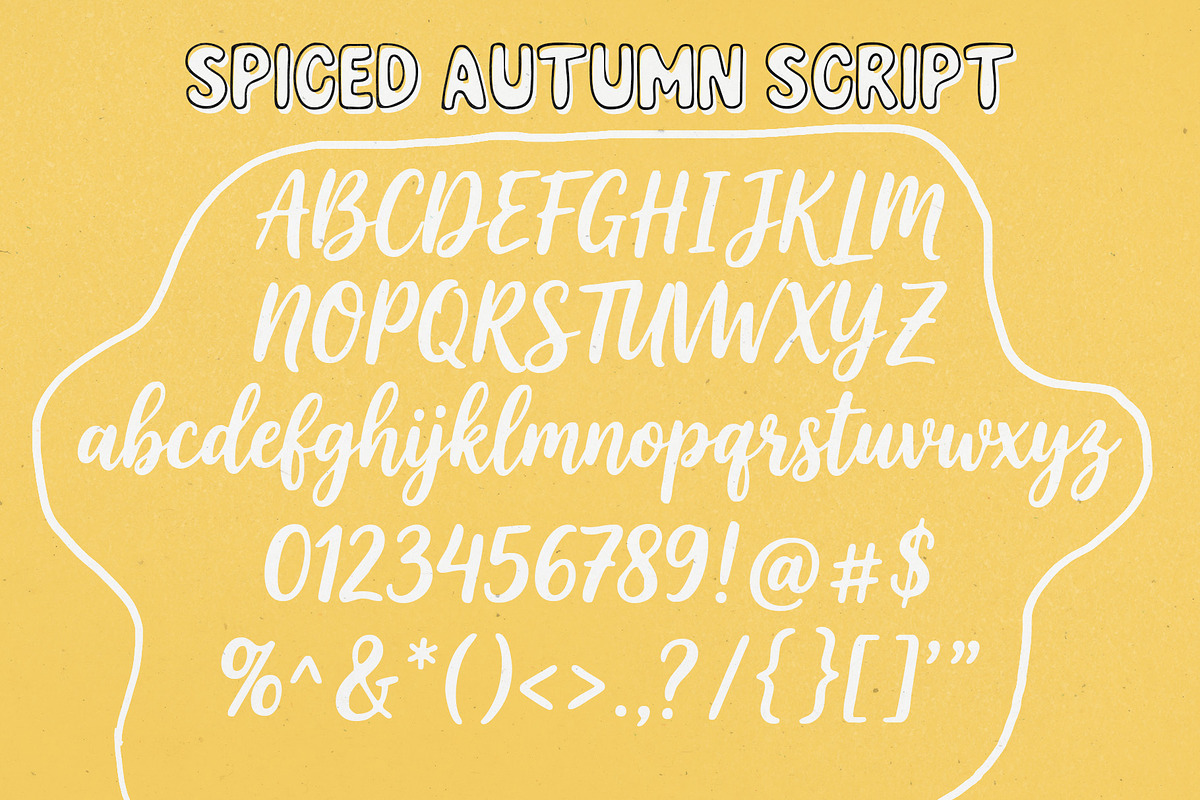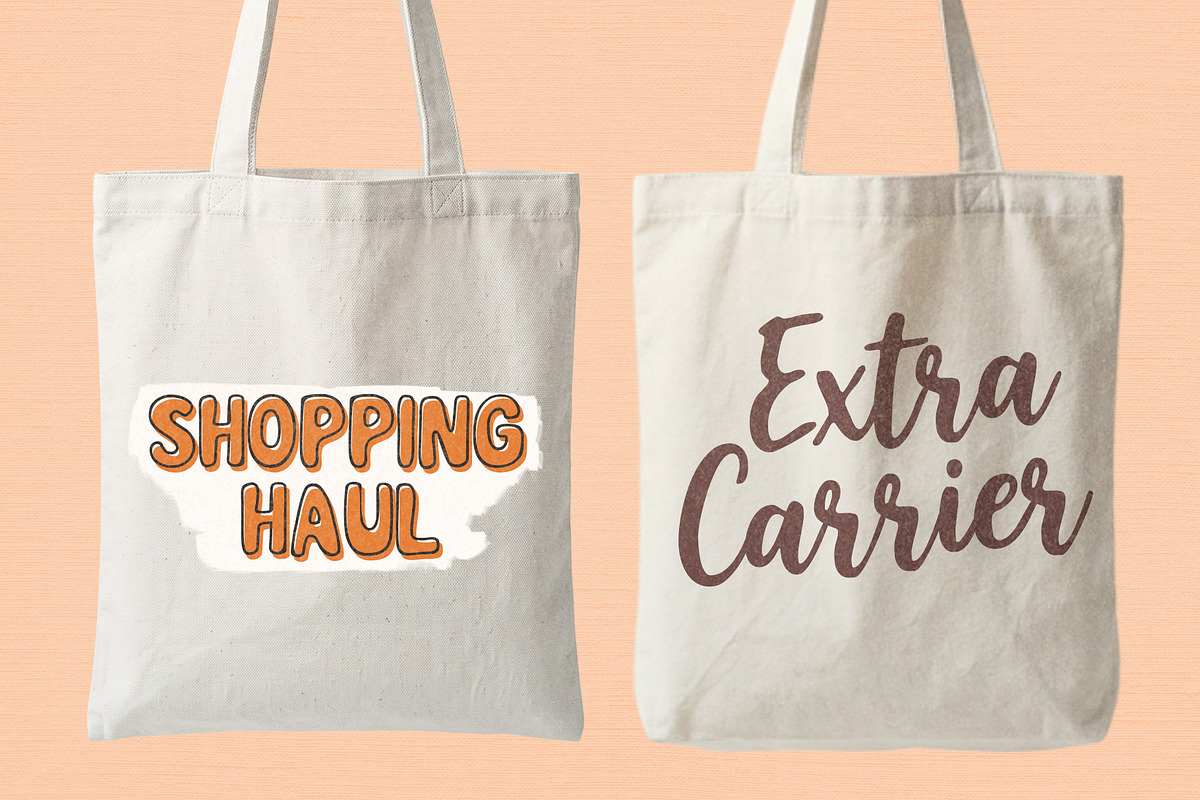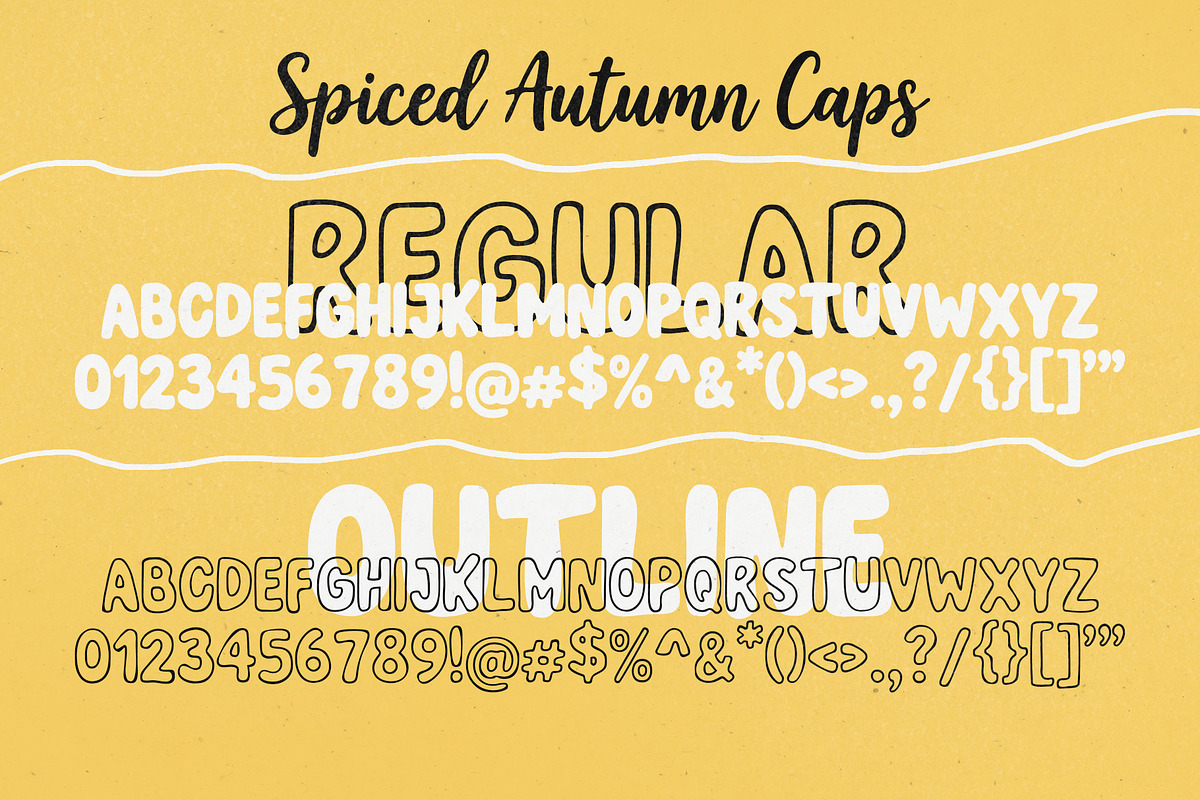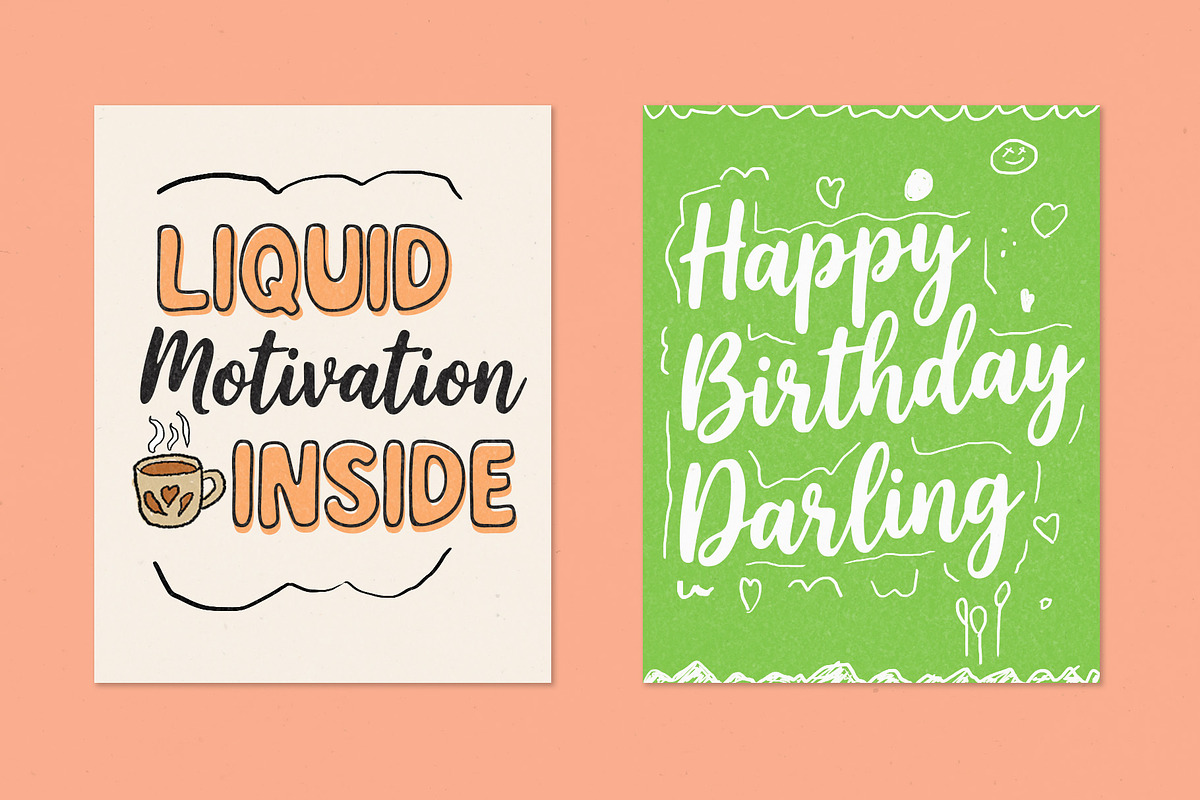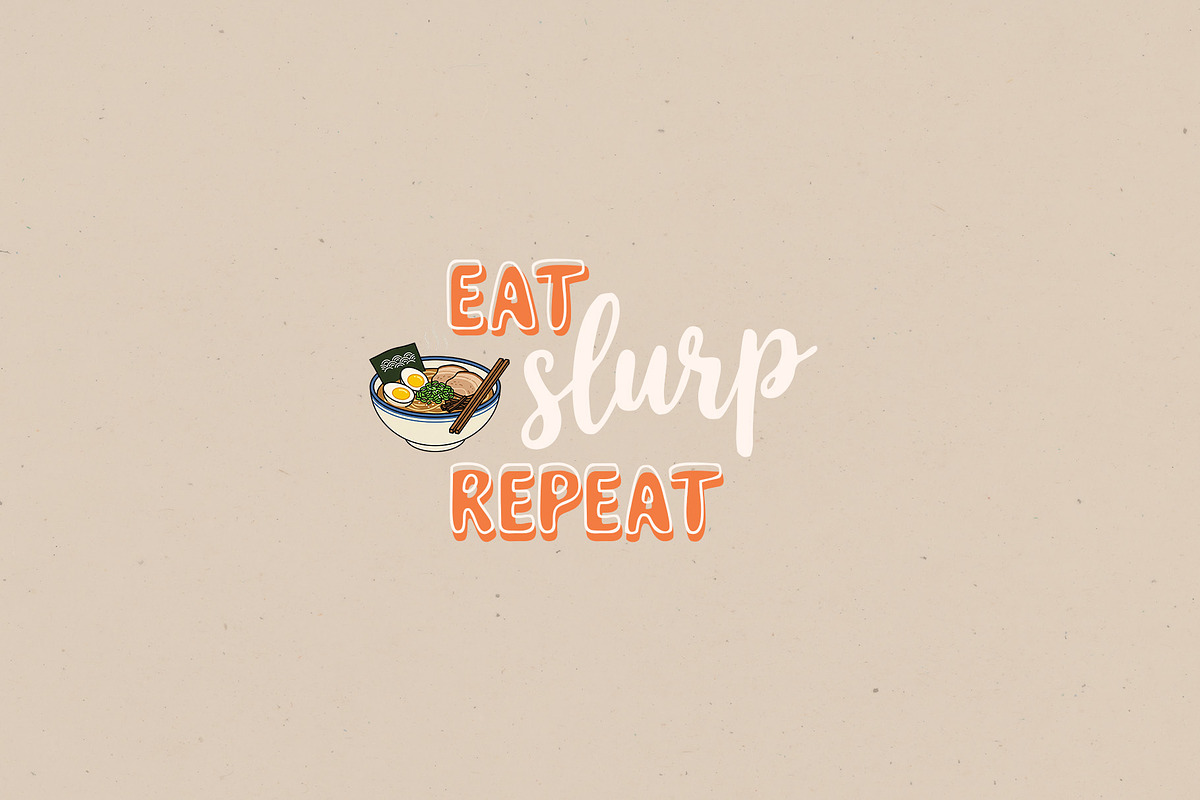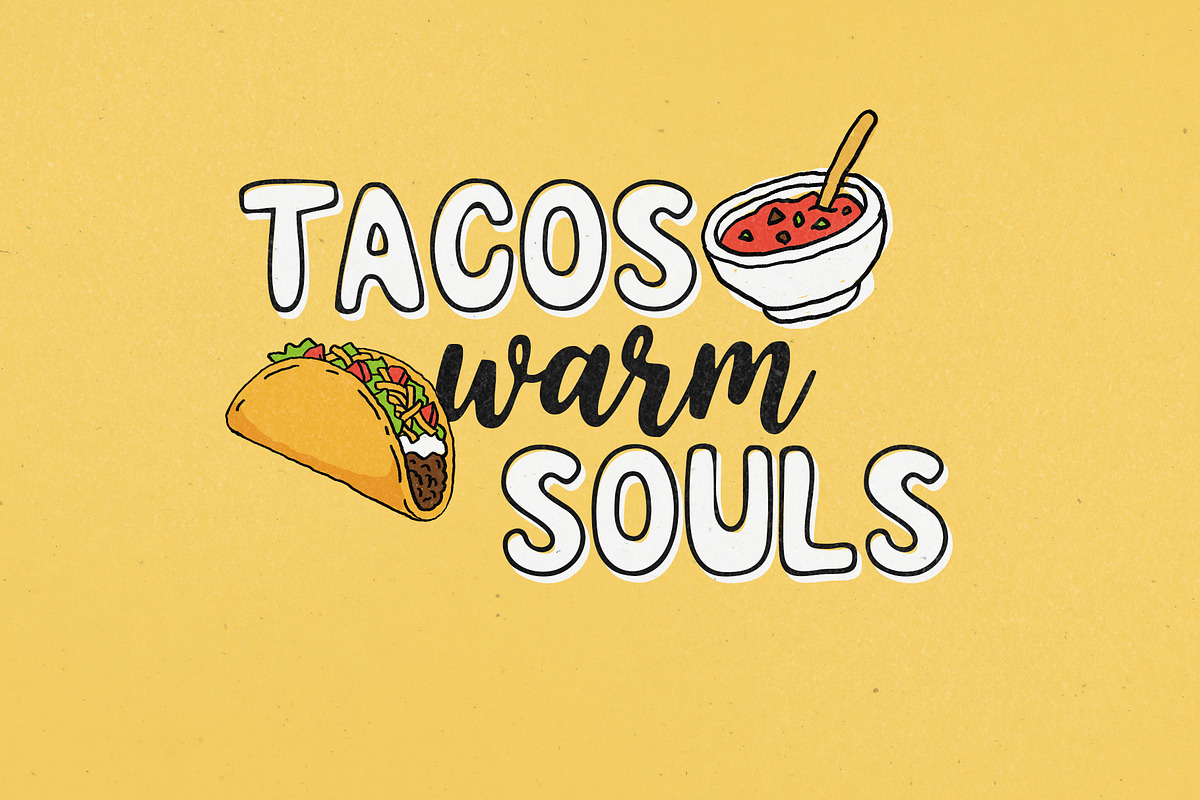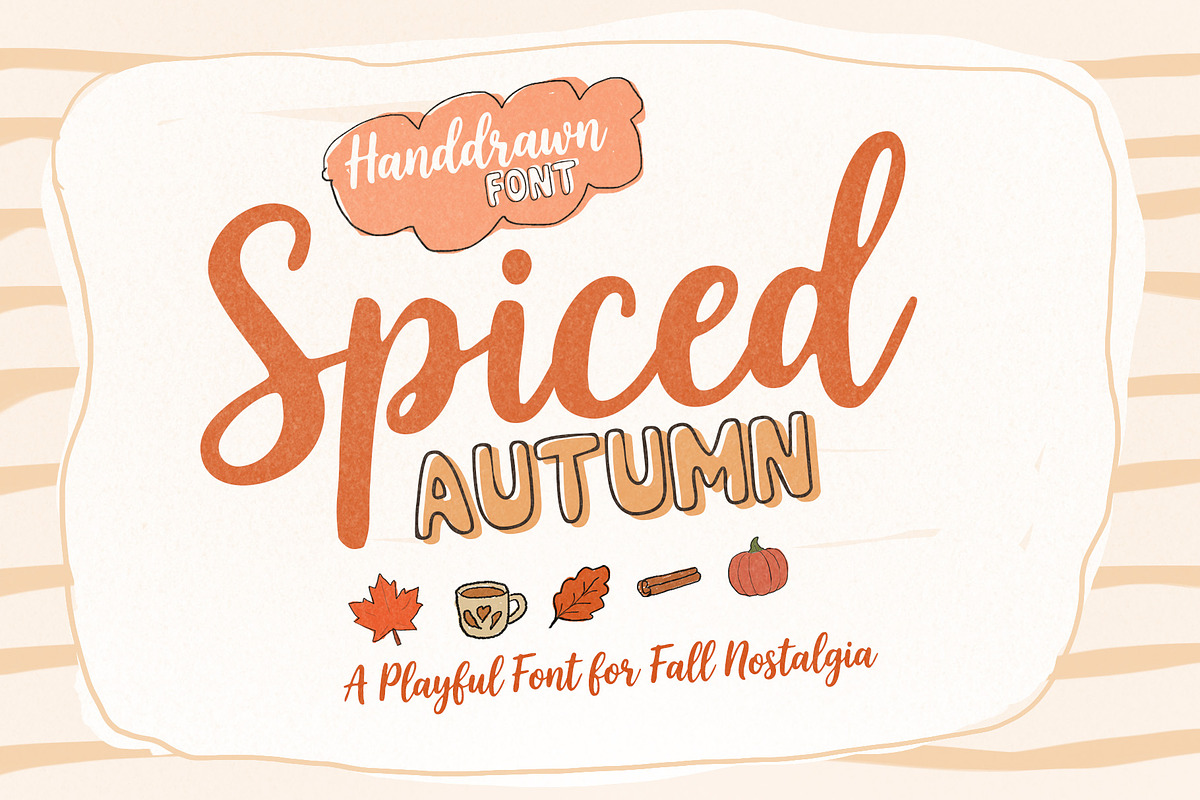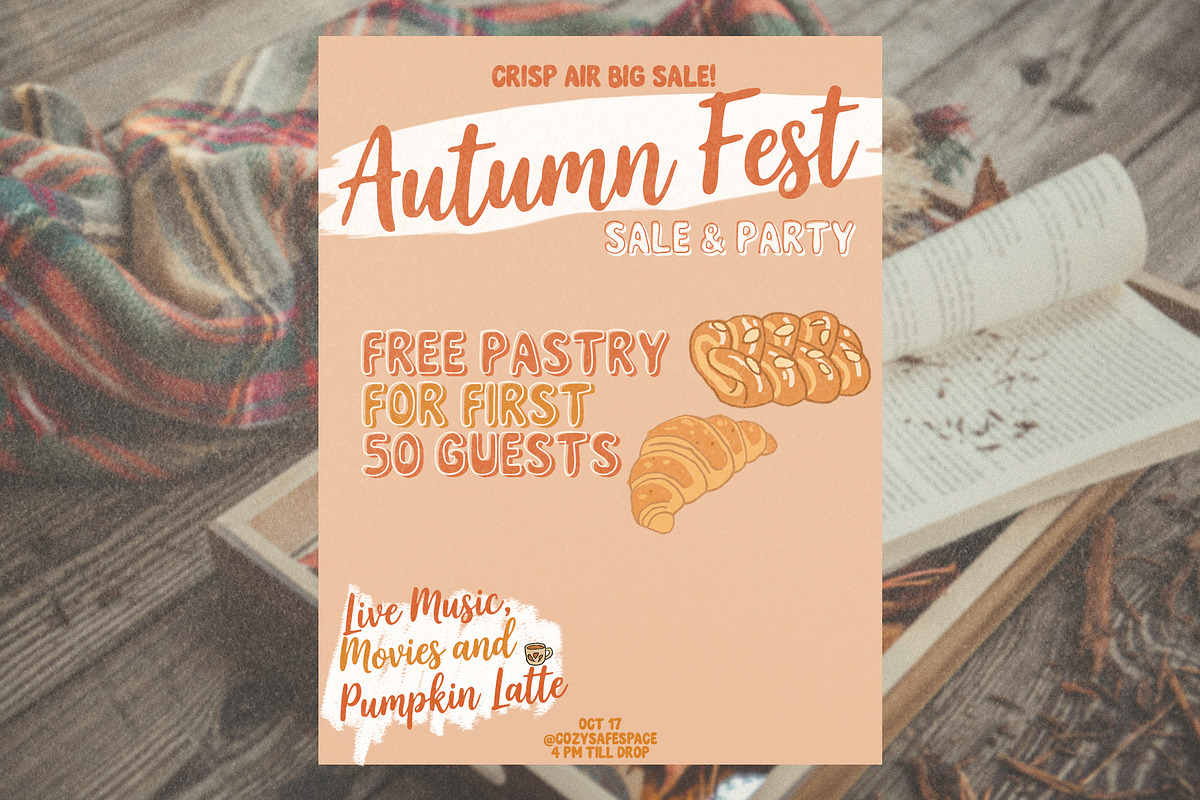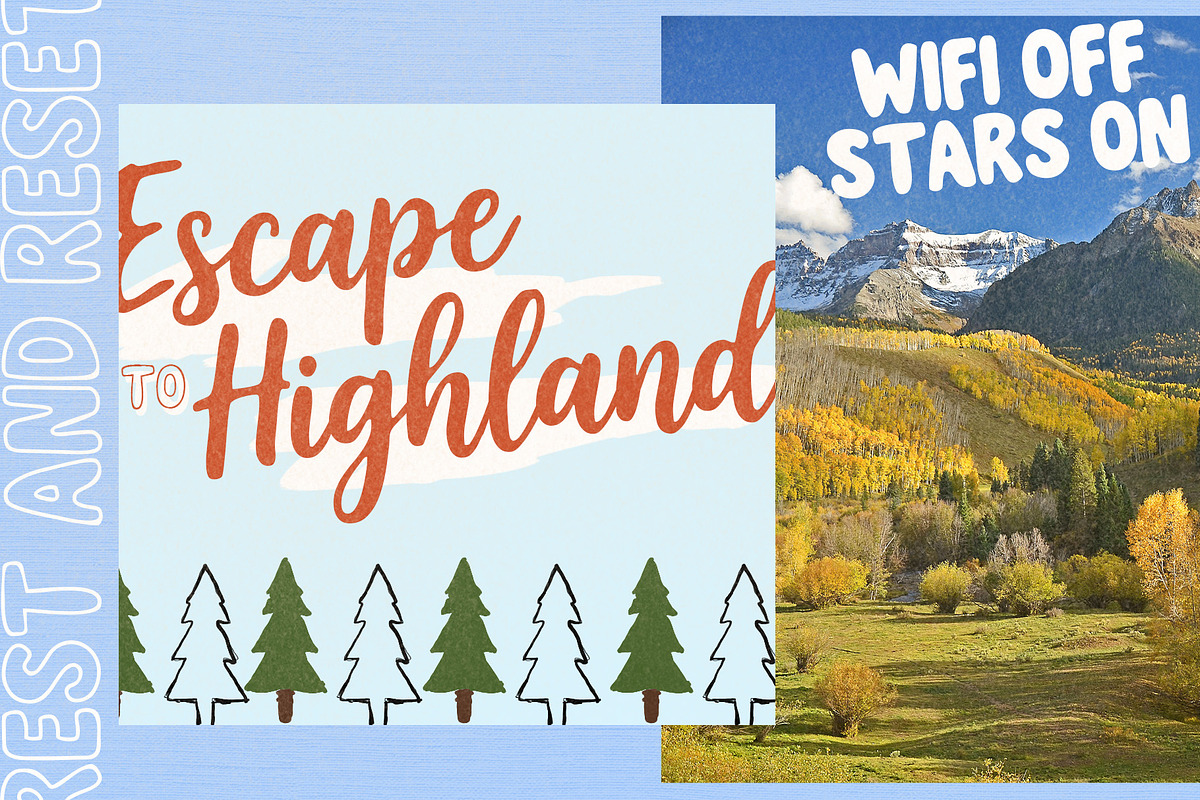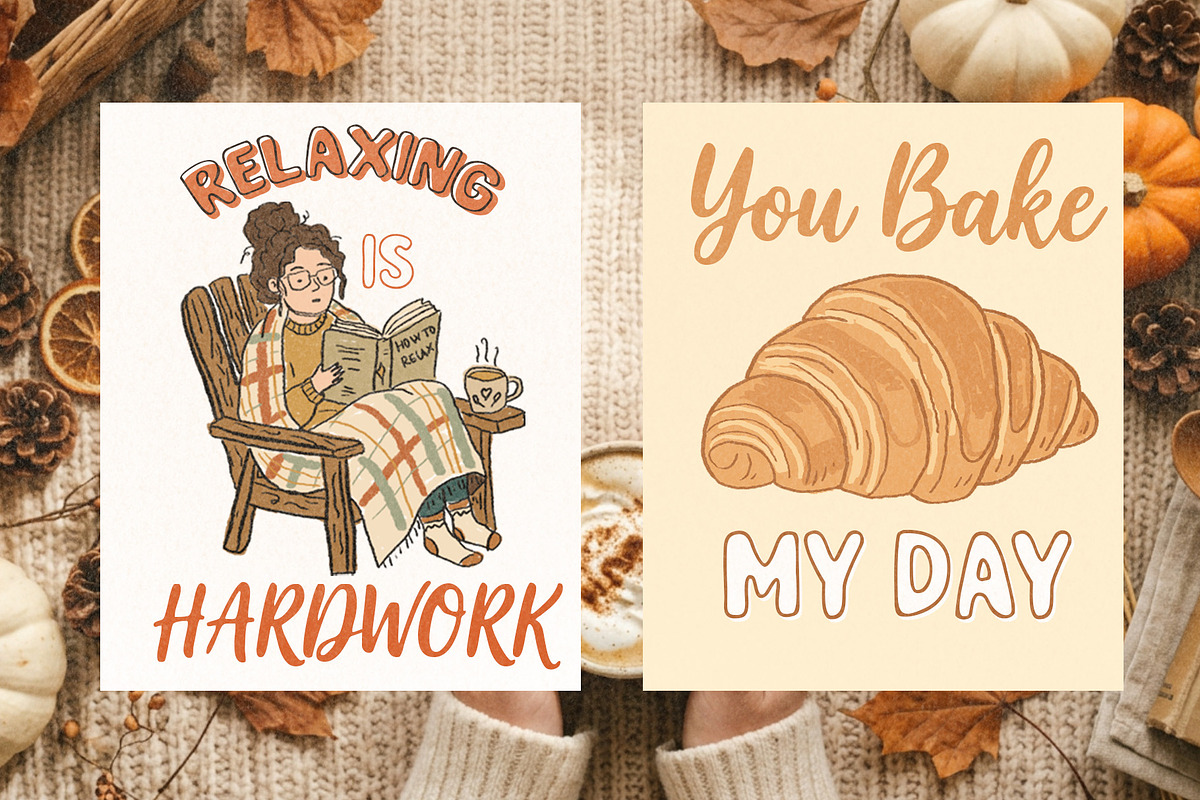
Spiced Autumn Playfull Dual Font
Embrace the warmth of the crisp autumn air with Spiced Autumn, a beautiful dual font collection designed to bring personality, charm, and a touch of summer nostalgia into your creative projects. Inspired by vintage beach culture and cozy fall afternoons, this duo offers a perfect chemistry between elegant flows and playful structures.
This font family is incredibly versatile, making it the perfect choice for bold commercial campaigns, cafe or coffee shop branding, retro typography posters, custom merchandise (like tote bags or t-shirts), packaging design, or cozy event flyers.